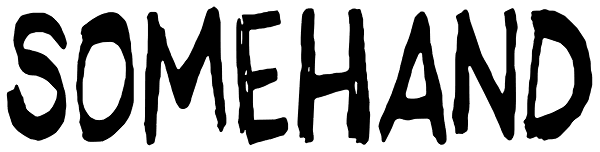
Somehand
Handsome in its own way, More versatile than one could say. Four alternates to each letter, Because in this family Spontaneity do matter. (And just in case someone wonders, Yes, there are alternates for numbers!) Seven cuts the family holds. Six of...
Somehand Strong
Somehand
Somehand Broad
Somehand Regular And Fast
Somehand Broad And Fast
Somehand Strong And Fast
Somehand Stuff